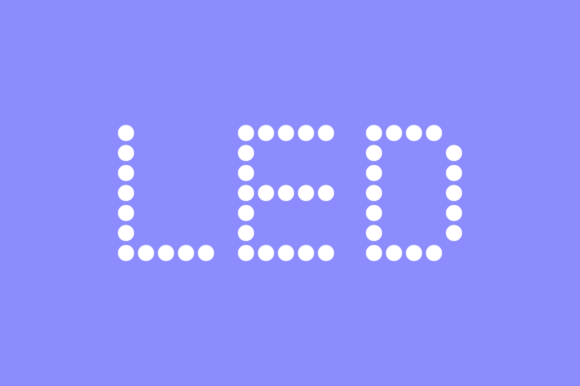
Delve into the world of digital expression with Led Family Font, a display typeface that captivates with its unique dotted design. Crafted by the visionary Pablo Balcells for Graviton Font Foundry in 2012, Led is a font that sparks creativity and ignites imagination.
Led's distinctive dot matrix pattern adds an aura of retro futurism to your designs, transporting them to a realm of pixelated nostalgia and digital allure. This font family, with its two captivating styles, offers endless possibilities for creating eye-catching headlines, thought-provoking posters, and captivating social media graphics that leave an indelible mark on your audience.
Unleash the power of Led to transform your digital creations into immersive experiences. Its crisp, geometric forms and playful dot matrix structure infuse your designs with a sense of innovation and modernity. Whether you're a seasoned designer or a creative enthusiast, Led is the perfect companion to elevate your projects to new heights of visual appeal.
Immerse yourself in the endless possibilities that Led Family Font presents. Let your imagination run wild as you craft visually stunning designs that resonate with your audience. From dynamic logos and website headers to eye-catching social media posts and captivating presentations, Led is the font that ignites your creative spark and propels your designs to the forefront of digital expression.
Step into the future of typography with Led Family Font, the visionary display typeface that pushes the boundaries of digital design. Its dotted display structure and two captivating styles empower you to create designs that transcend the ordinary and leave a lasting impression. Embrace Led and unlock the full potential of your creative vision.